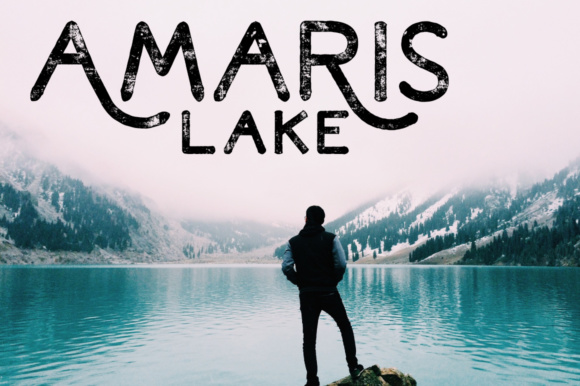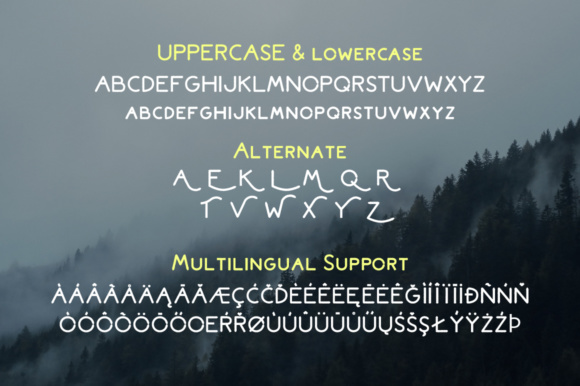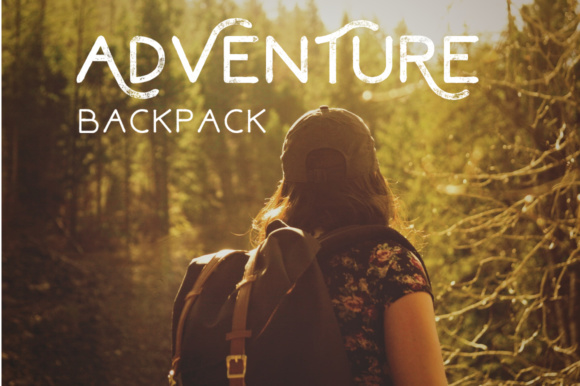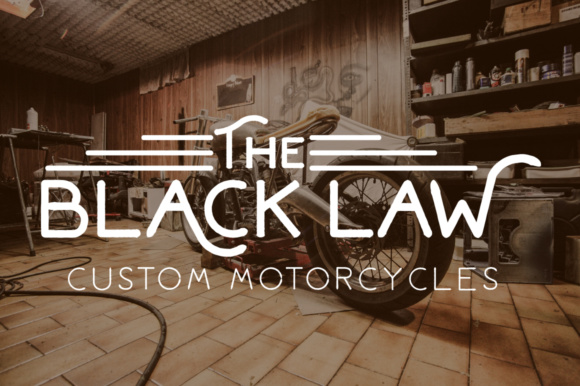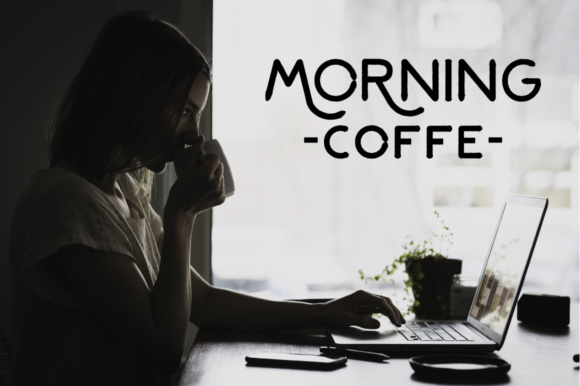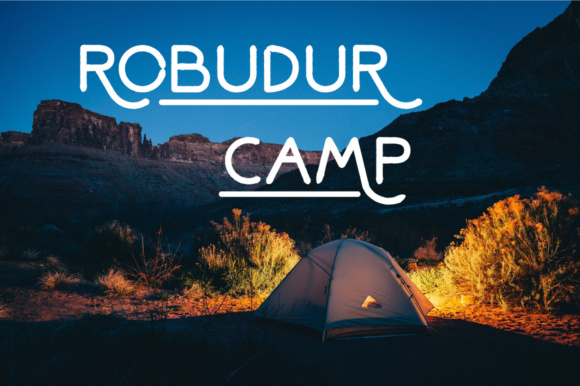
Give Your Typography Design a Striking Look with Bromoto Font!
Are you tired of using the same old fonts for your design projects? Do you want to add a touch of fun and playfulness to your typography? Look no further than the Bromoto font! This exciting new font is designed to make your designs stand out from the crowd, and it’s perfect for crafters, designers, and anyone looking to add some personality to their work.
What is Bromoto Font?
Bromoto font is a modern, sans-serif font that comes in two styles: regular and bold. The combination of these two styles makes Bromoto a versatile and dynamic font that’s perfect for a wide range of design projects. Whether you’re creating a logo, brochure, or social media graphic, Bromoto font is sure to make your design pop.
Key Features of Bromoto Font
- Two Styles: Bromoto font comes in two styles: regular and bold. This allows you to mix and match the two styles to create a unique and eye-catching design.
- Fun and Playful: Bromoto font has a fun and playful vibe that’s perfect for designs that need a bit of personality.
- Modern and Fresh: The clean lines and modern design of Bromoto font make it perfect for designs that need to look fresh and up-to-date.
- Highly Versatile: Bromoto font can be used for a wide range of design projects, from logos and brochures to social media graphics and more.
How to Use Bromoto Font in Your Designs
Using Bromoto font in your designs is easy! Here are a few tips to get you started:
- Pair the Regular and Bold Styles: One of the best things about Bromoto font is the way the regular and bold styles work together. Try pairing the two styles to create a fun and dynamic design.
- Experiment with Different Sizes: Bromoto font looks great in a variety of sizes, from small and delicate to large and bold. Experiment with different sizes to find the one that works best for your design.
- Add Some Color: Bromoto font looks great in a variety of colors, so don’t be afraid to add some personality to your design with a bold and bright color scheme.
Benefits of Using Bromoto Font
There are many benefits to using Bromoto font in your designs. Here are just a few:
- Adds Personality to Your Designs: Bromoto font is a great way to add some personality and whimsy to your designs.
- Perfect for Creative Projects: If you’re working on a creative project, such as a logo or brochure, Bromoto font is a great choice.
- Easy to Read: Despite its playful vibe, Bromoto font is easy to read, making it perfect for designs that need to communicate a message.
Who Can Benefit from Using Bromoto Font?
Bromoto font is perfect for a wide range of designers and crafters, including:
- Graphic Designers: If you’re a graphic designer looking for a fun and playful font to add to your toolkit, Bromoto font is a great choice.
- Crafters: If you’re a crafter who loves to create handmade cards, gift tags, and other paper crafts, Bromoto font is a great choice.
- Social Media Managers: If you’re a social media manager looking for a font that will make your graphics stand out, Bromoto font is a great choice.
In conclusion, Bromoto font is a fun and playful font that’s perfect for designers and crafters who want to add some personality to their work. With its two styles, modern design, and highly versatile nature, Bromoto font is sure to become a favorite in your design toolkit. So why wait? Give Bromoto font a try today and see the difference it can make in your designs!